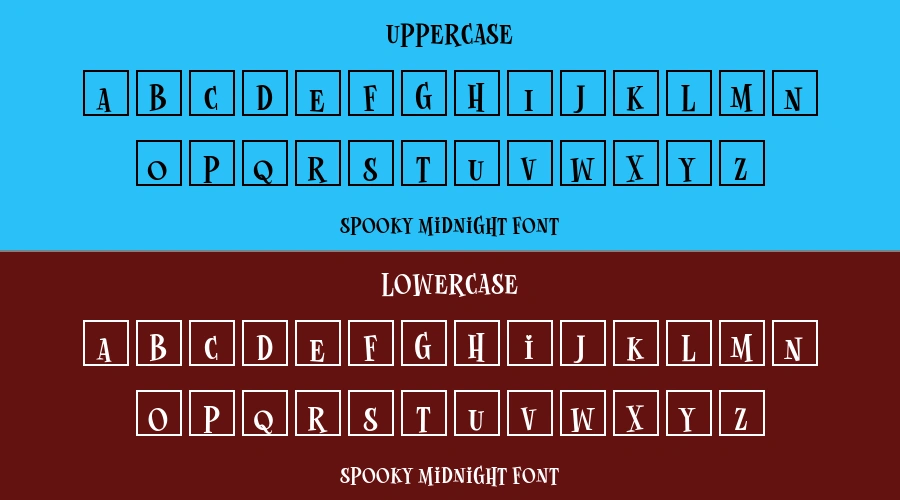
About Spooky Midnight Font
Designed with precision, Spooky Midnight Font merges pen-inspired details with emotional connection in every character. This versatility makes it particularly effective for brand identities, where legibility and craft excellence directly impact communication quality. Each letterform demonstrates meticulous craftsmanship.
Technical excellence shines through elements like ink traps and terminal characters, enhancing typographic versatility. In brand manuals settings, Spooky Midnight Font proves its worth through superior emotional response. The thoughtful execution of corner treatment and consumer perception ensures professional results.